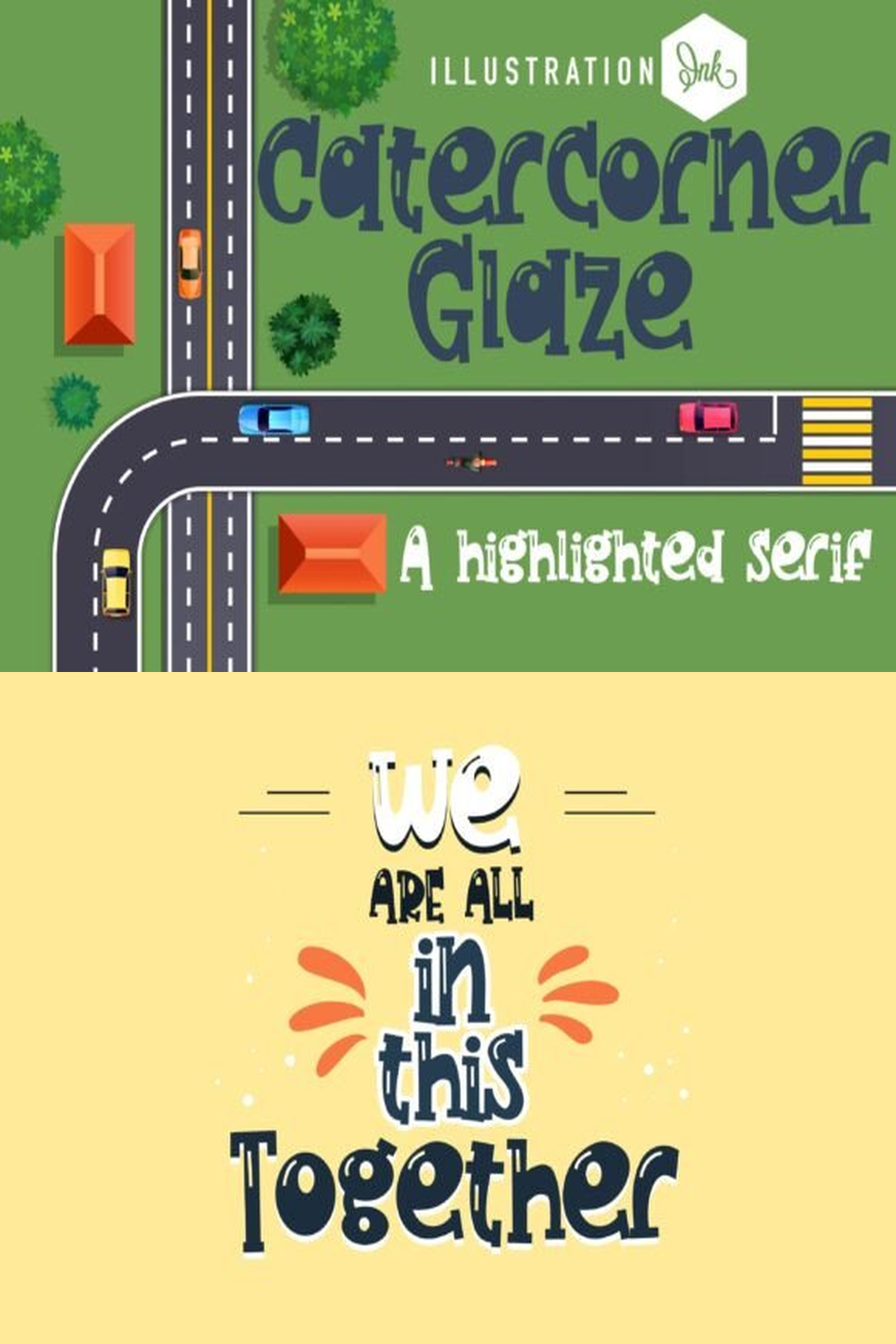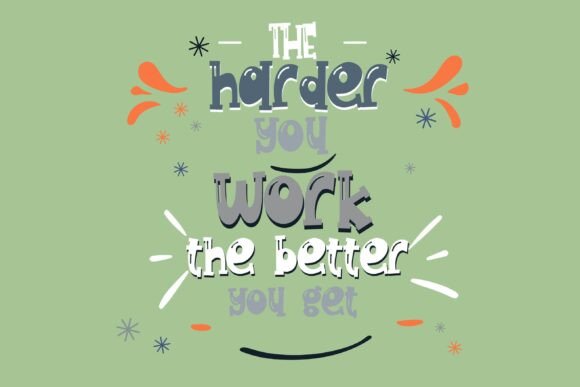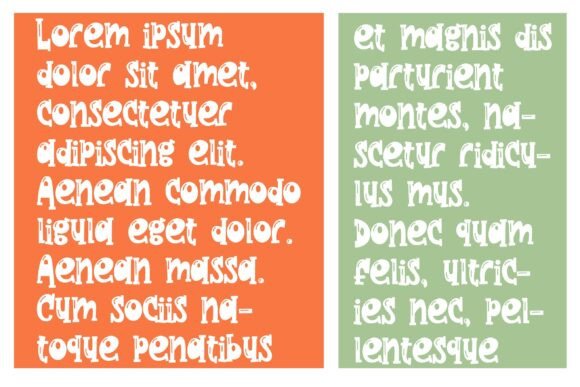
Catercorner Font
About the Catercorner Font
The Catercorner Font is here to transform your projects with its distinctive character and style. This hand-crafted font is a whimsical serif with chunky, thick, whimsical, lettering.
Highlight version included.